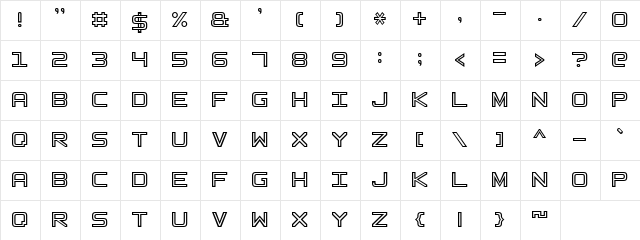
Basic Square 7 Regular
Design Context for Basic Square 7 Typeface
Basic Square 7 offers clean, dependable letterforms without strong stylistic allegiance, making it a practical choice for designers who need flexibility.